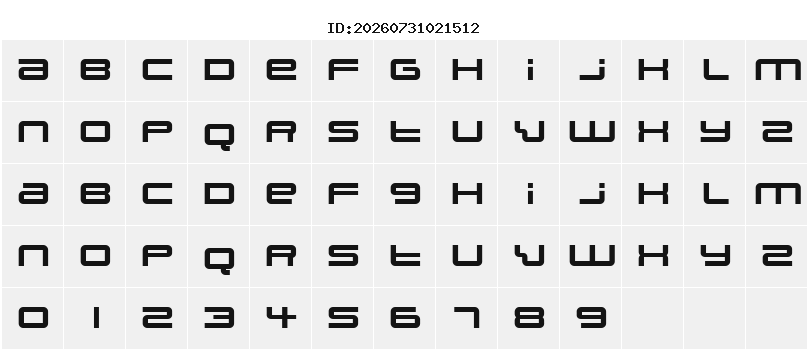
About LittleTriggers.ttf
LittleTriggers.ttf is a modern, elegant sans-serif font designed for ultimate readability and visual harmony. Perfect for branding, headlines, web design, and print materials.